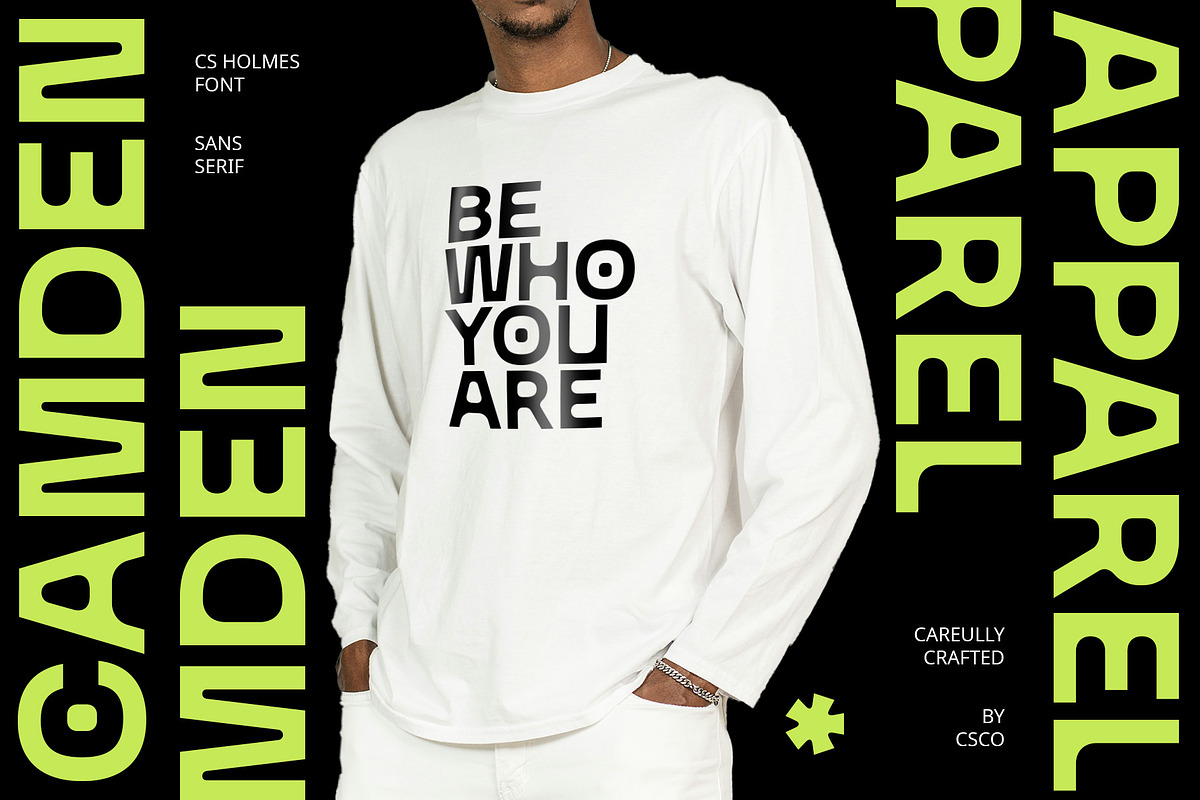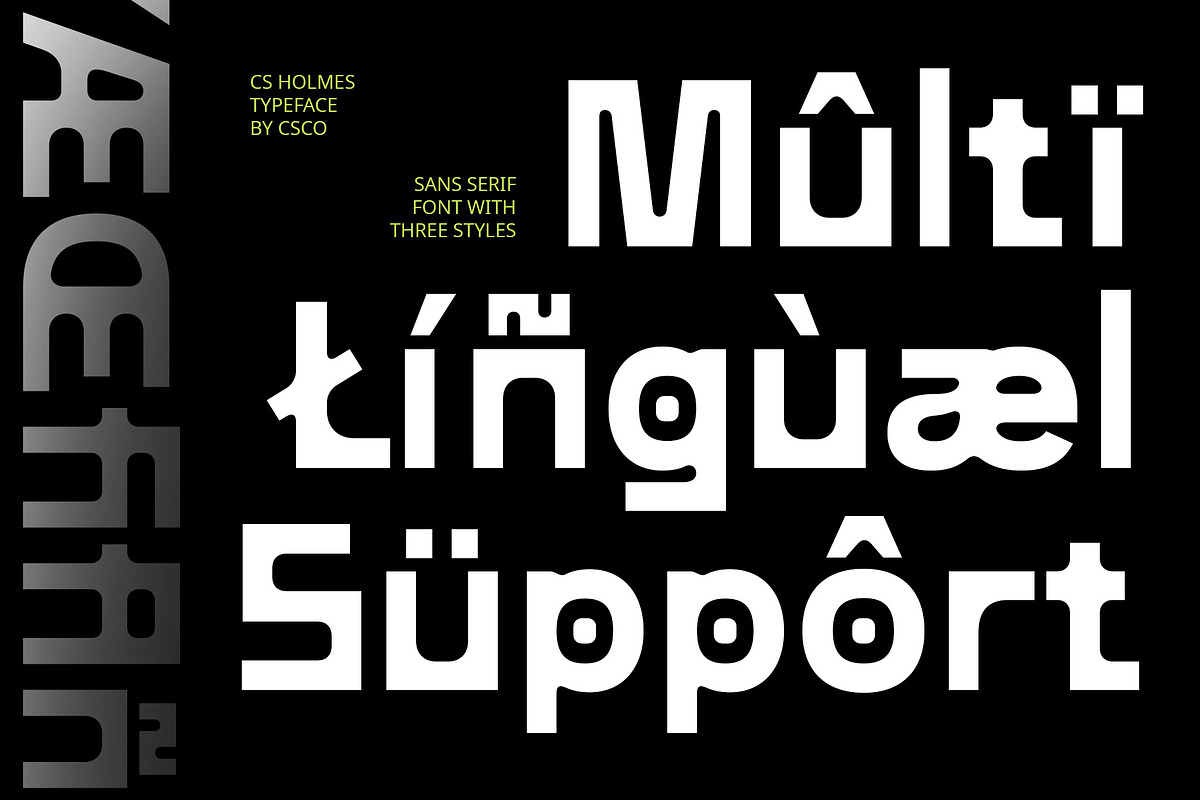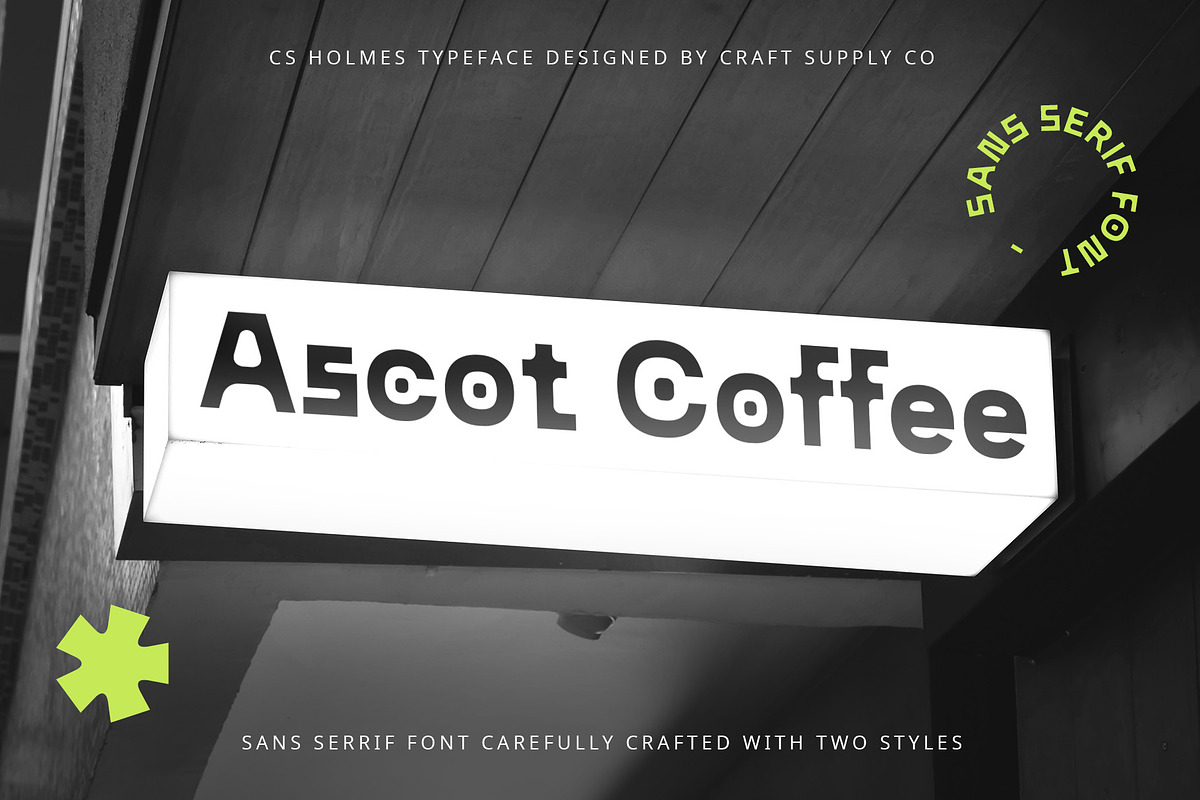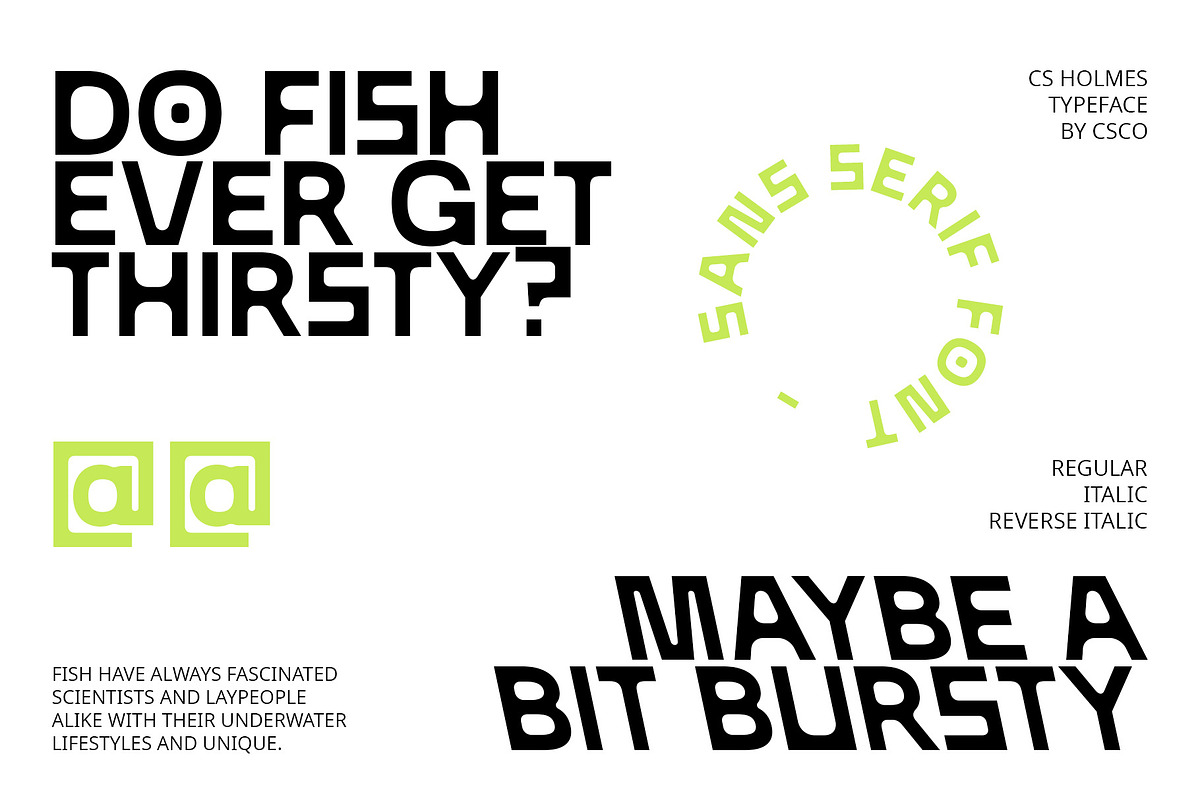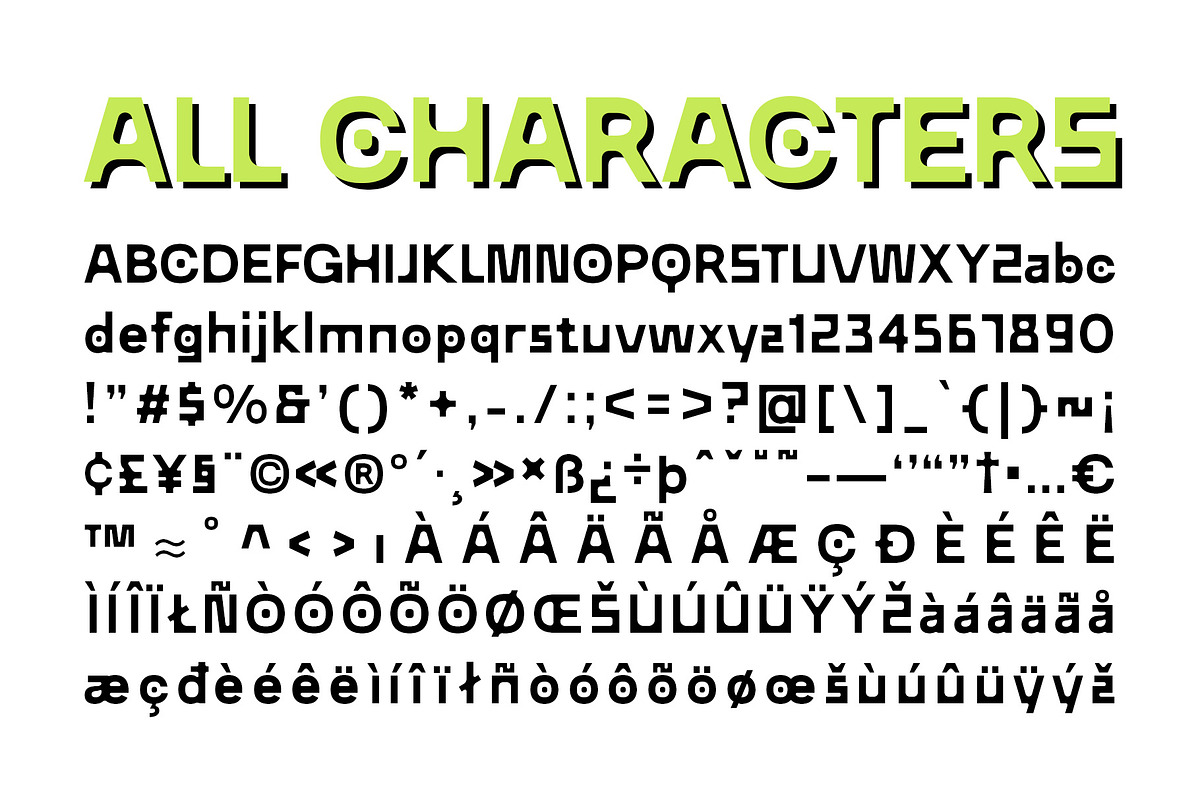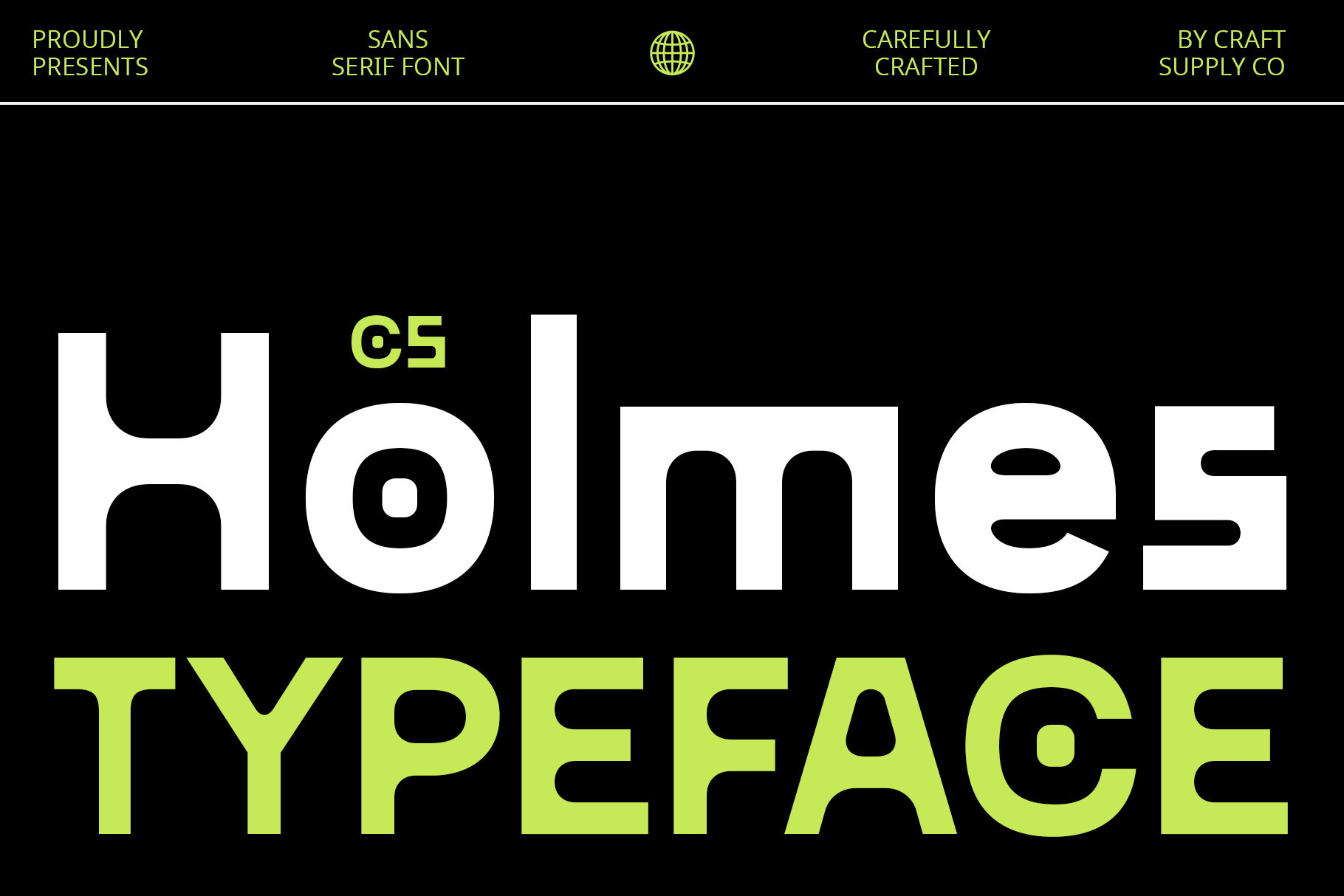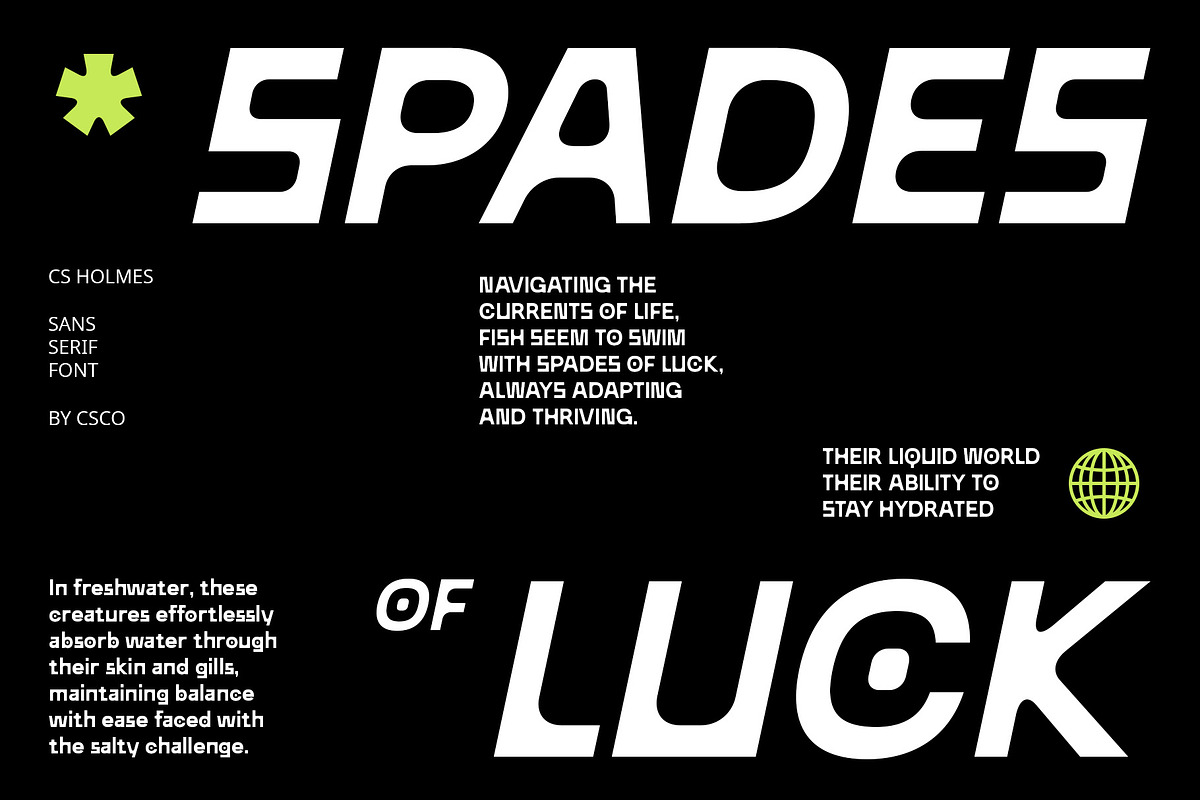
CS Holmes – Sans Serif Font
CS Holmes – Industrial Sans Serif Font
Modern and Sturdy CS Holmes is a sans-serif font with an industrial style, perfect for designs aiming to convey a modern, sturdy, and professional impression. Its clean lines and robust design make it an ideal choice for projects that require a contemporary and reliable look.
Ideal for Various Designs Perfect for logos, web design, promotional materials, and packaging design, CS Holmes ensures your message is both seen and remembered. Its industrial style adds a touch of modernity and strength to any project, making it suitable for a wide range of applications.
Versatile and Reliable Despite its industrial aesthetic, CS Holmes remains versatile and reliable. Its sans-serif format makes it suitable for a wide range of projects where a font that exudes modernity and reliability is essential for making a statement.
Perfect for Adding a Modern Touch CS Holmes is ideal for projects requiring a font with a modern touch. Whether you’re designing a logo, website, or promotional material, this font will undoubtedly add a distinct and memorable element to your designs.
- CS Holmes Regular
- CS Holmes Italic
- CS Holmes ReverseItalic